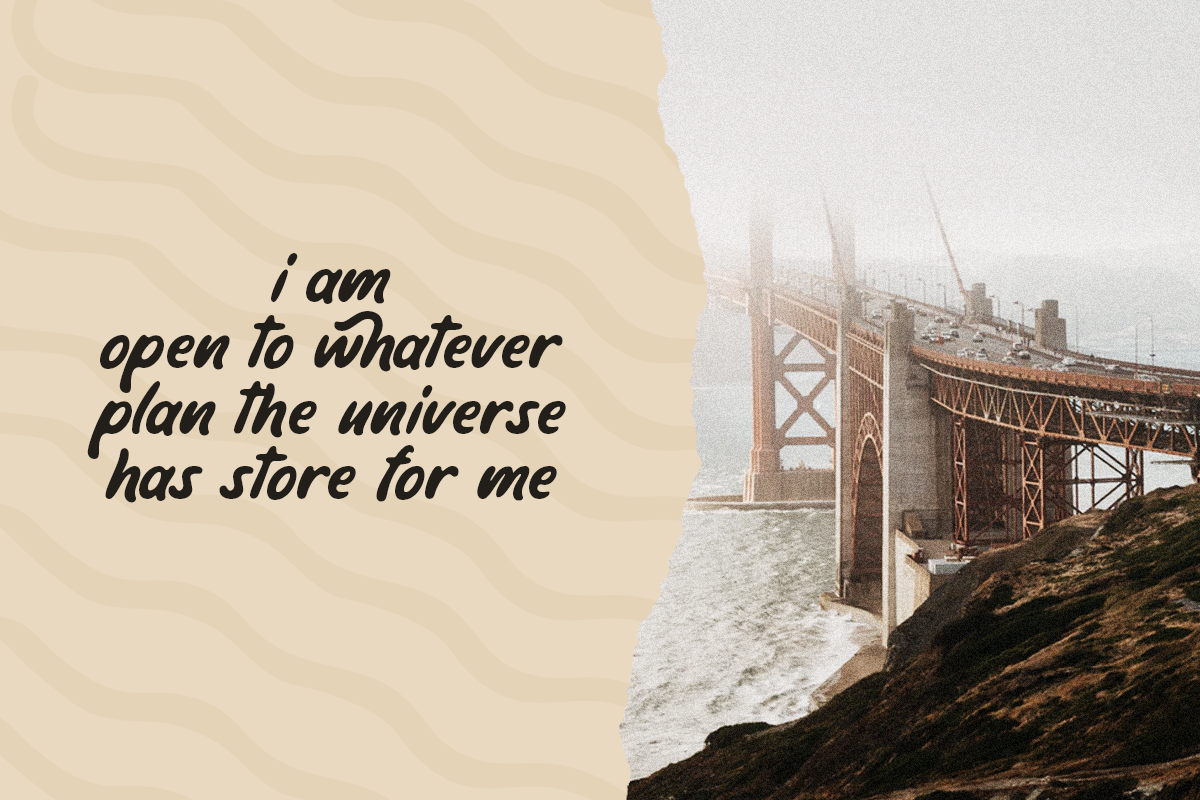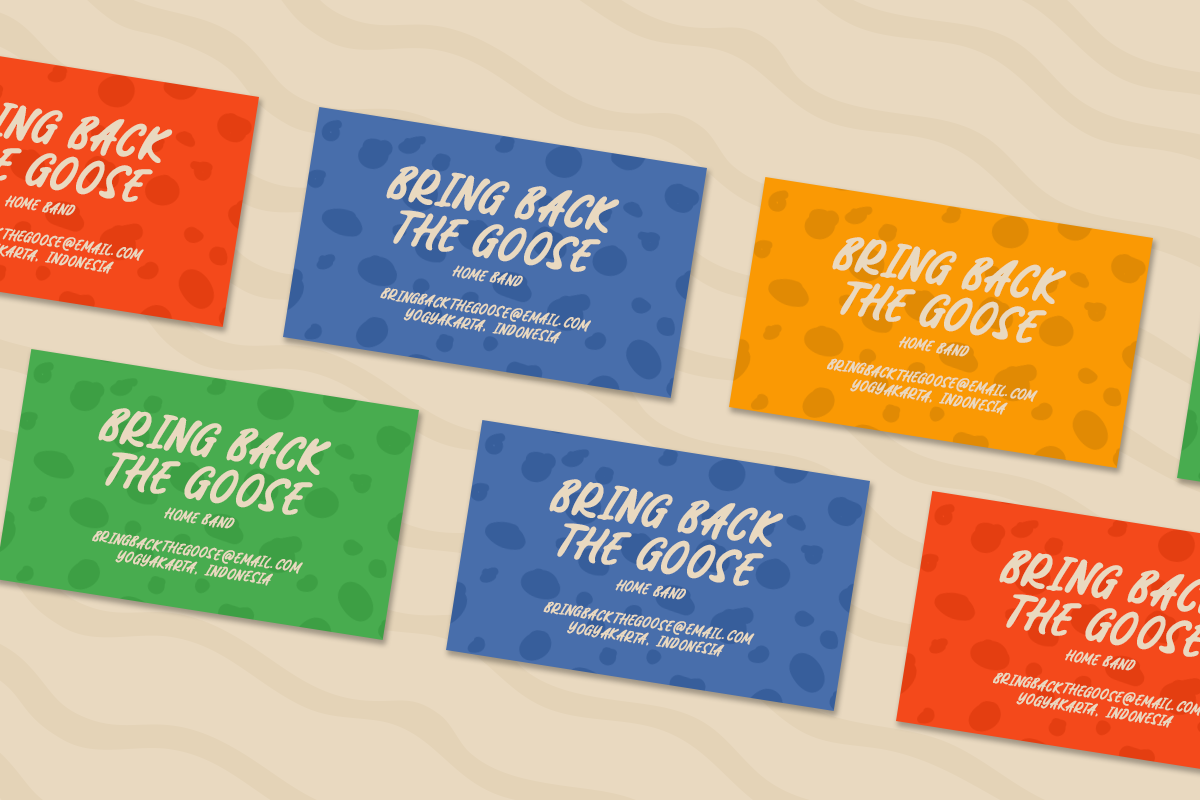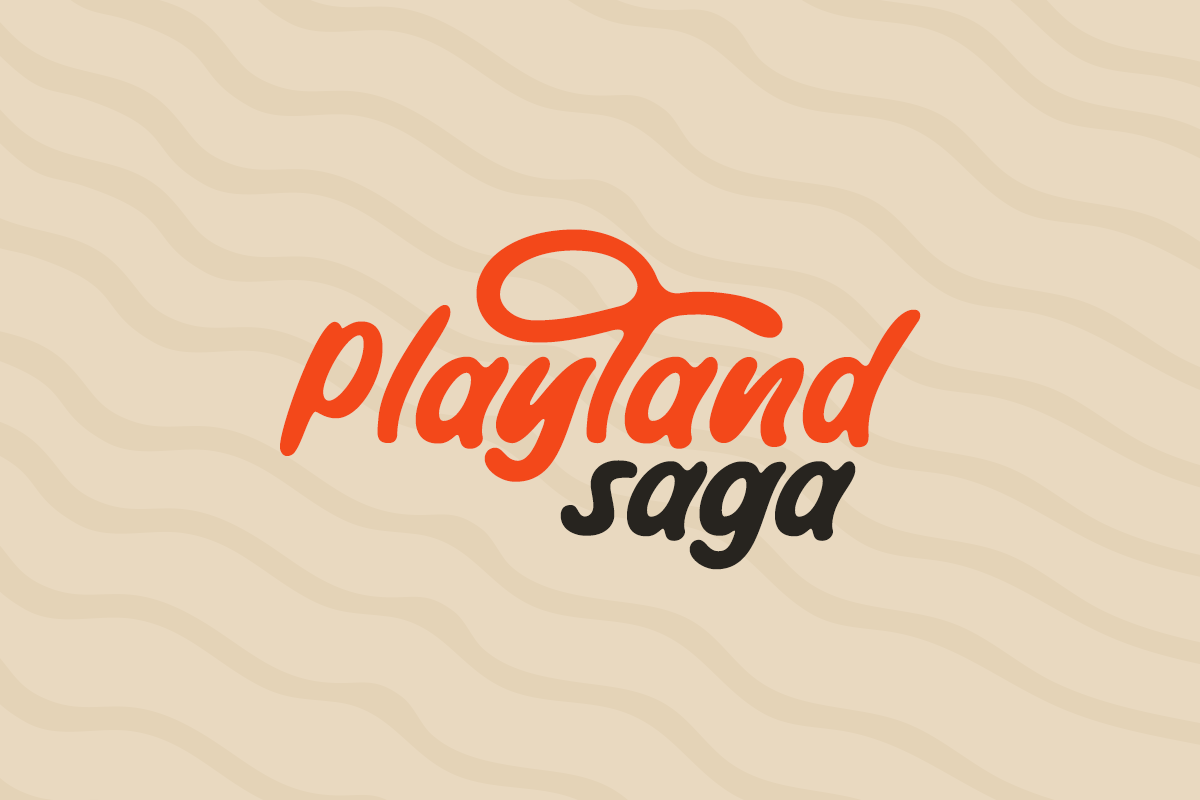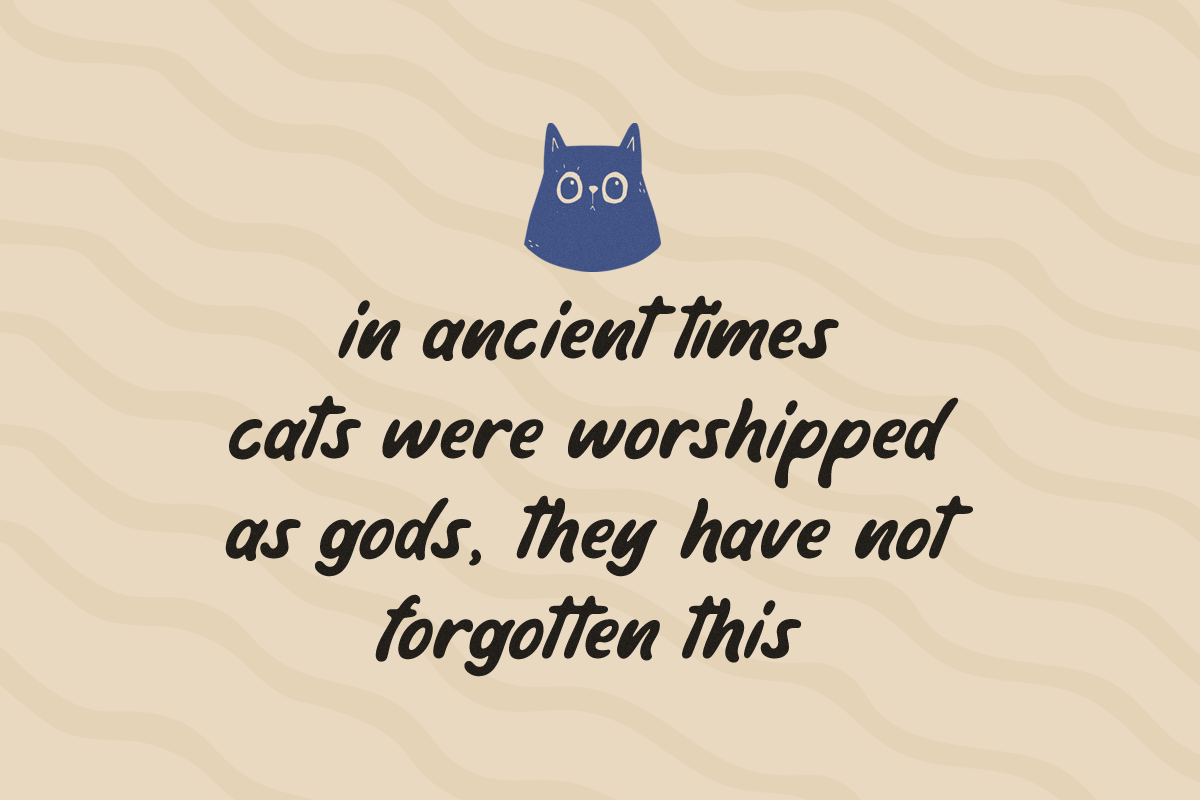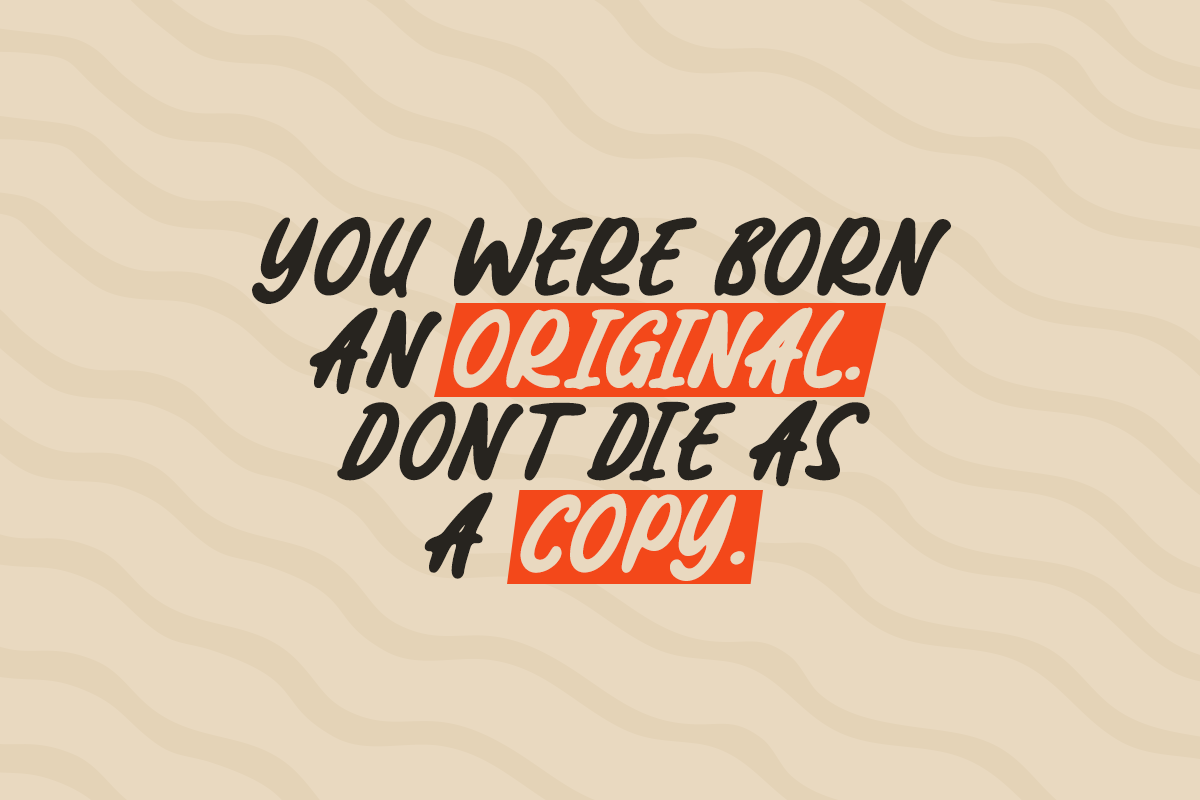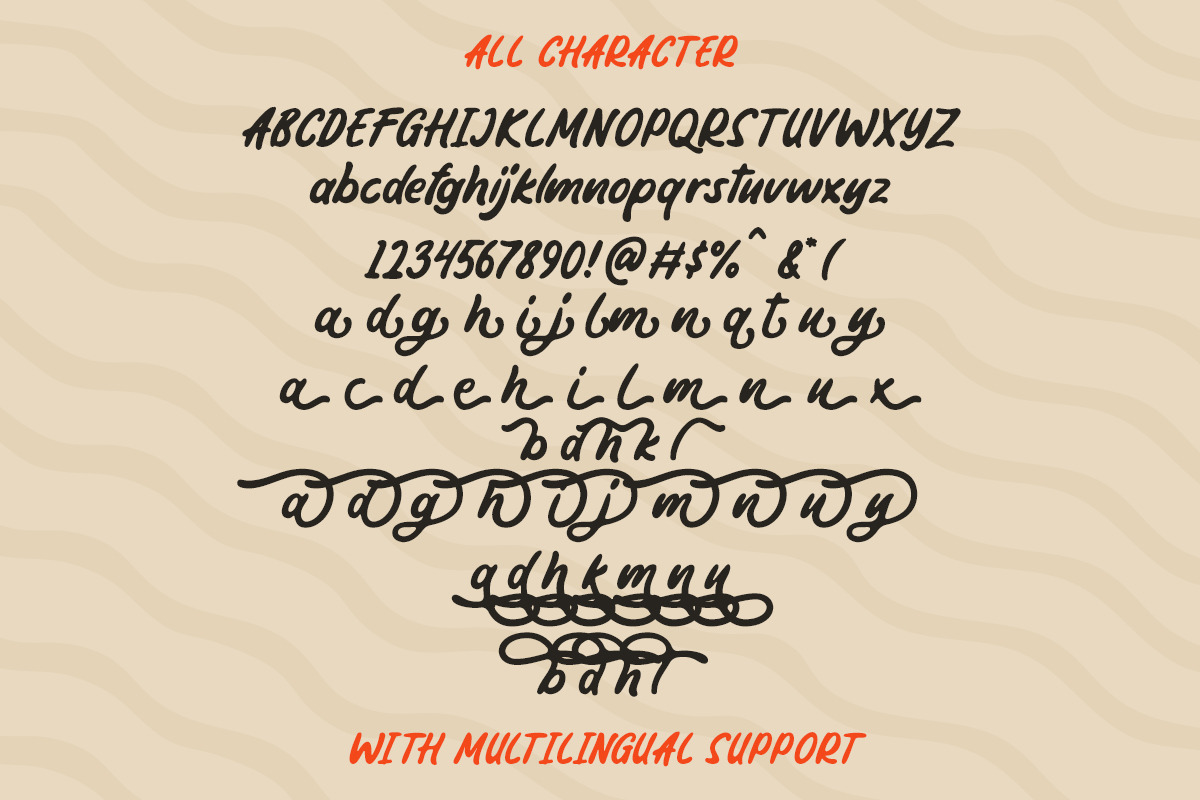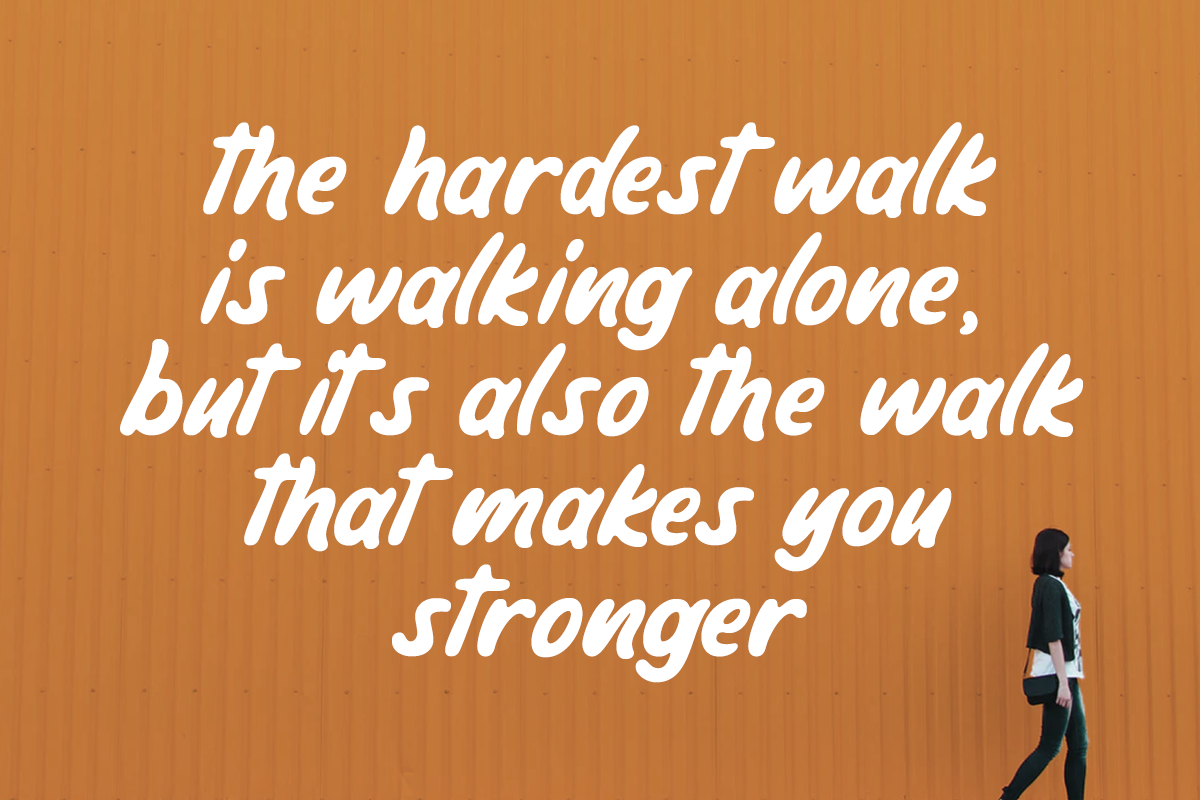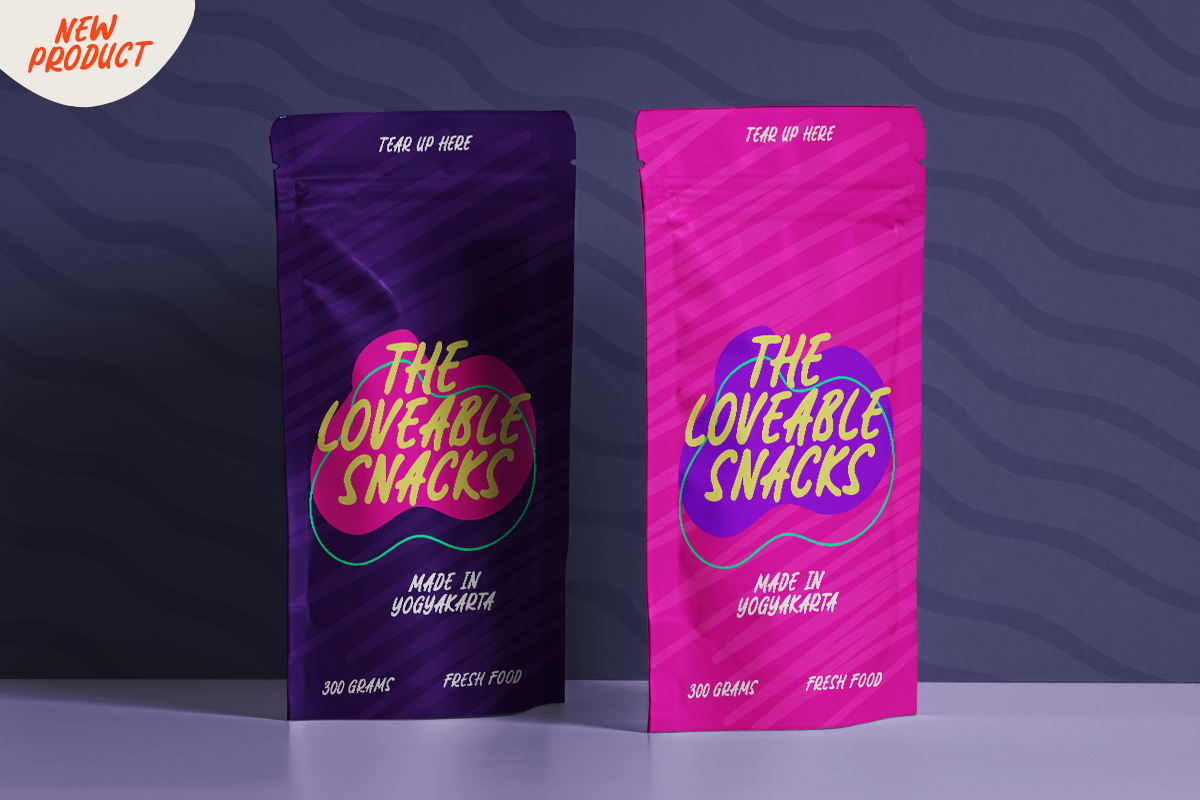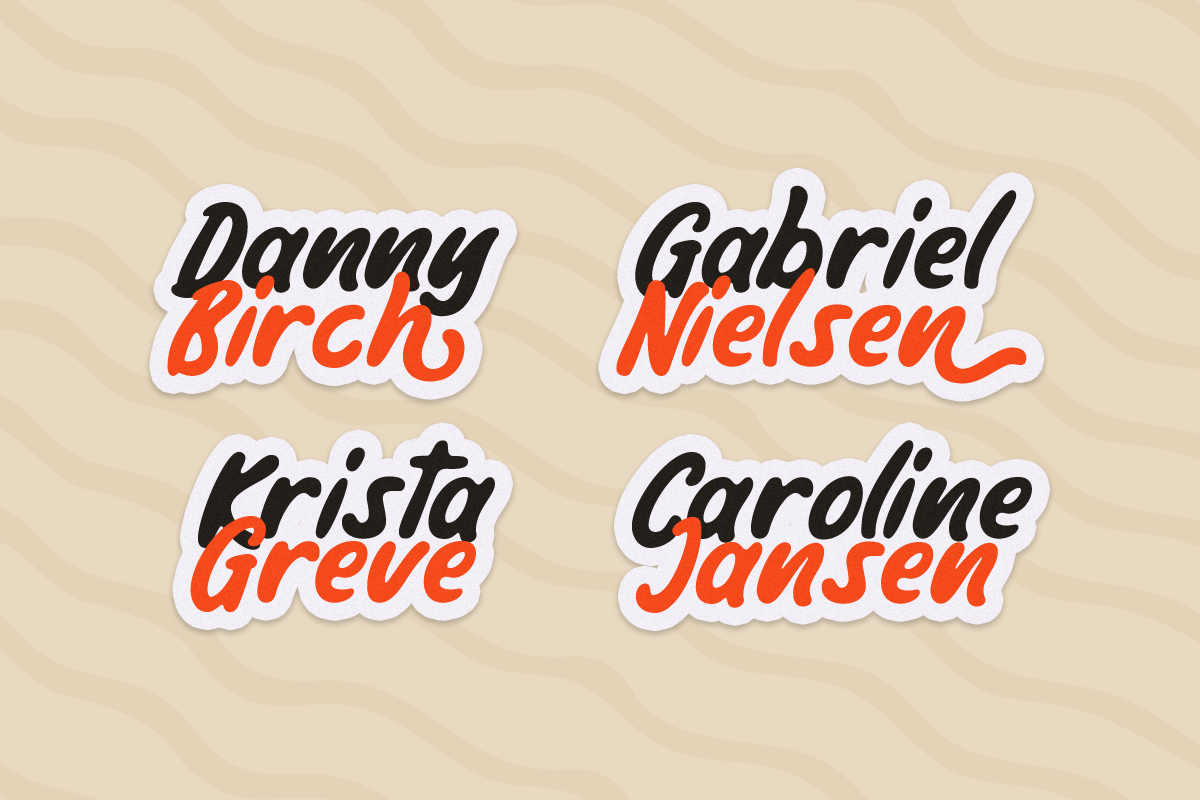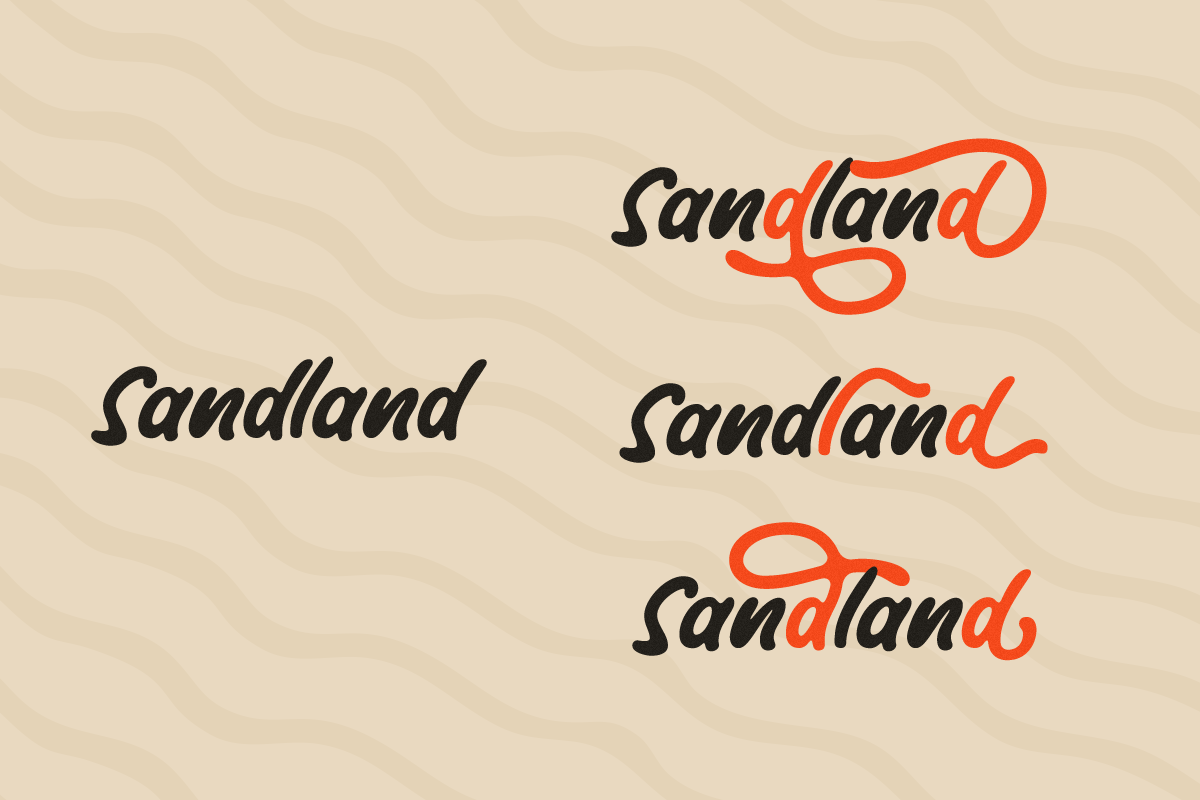
The Kindamana - Handwritten Display
Introducing, The Kindamana Handwritten Display Font. This type of font is carefully made to give the fun and cute feeling and to fit perfectly for quotes, branding, packaging, logotype, headline, books, novels, etc.
This font have up to 6 alternates set that you can mix and match!
- alternates